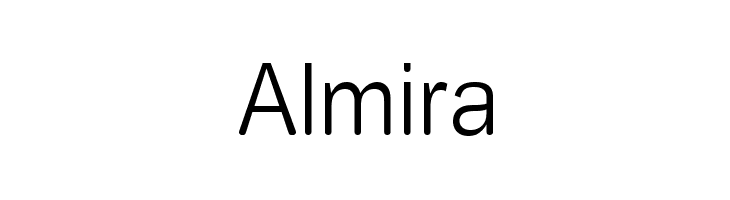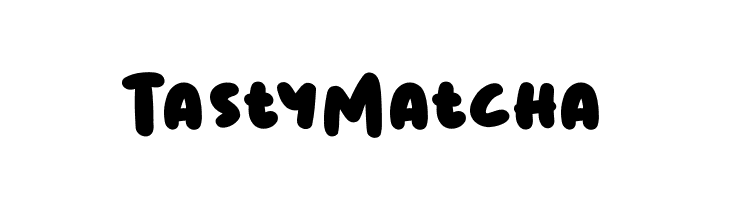
A modern sans-serif font with clean lines and excellent readability.
A bold, playful font with rounded edges and a graffiti-inspired style.
A bold, geometric font with tall, narrow characters and sharp angles.
A bold, traditional blackletter font with intricate, angular strokes.
An ornate and decorative script font with intricate swirls and flourishes.
A playful and whimsical script font with flowing, interconnected letterforms.
A bold, flowing script font with elegant cursive letterforms.
A playful and elegant handwritten script font with dynamic strokes.